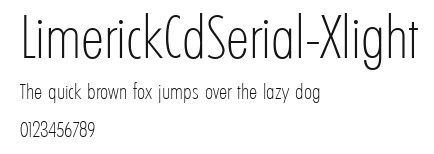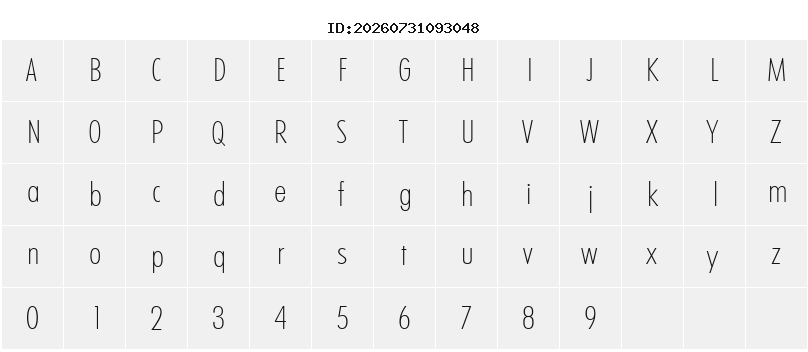
• Font Name: LimerickCdSerial-Xlight
• Designer: SoftMaker Software GmbH
About LimerickCdSerial-Xlight.ttf
LimerickCdSerial-Xlight.ttf is a modern, elegant sans-serif font designed for ultimate readability and visual harmony. Perfect for branding, headlines, web design, and print materials.